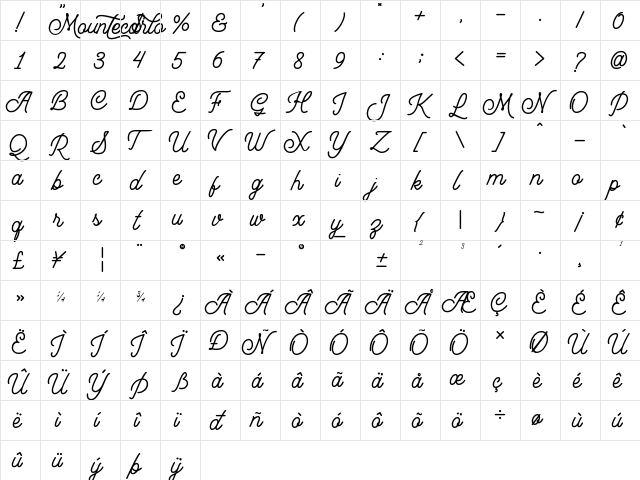
Mountecarlo Regular
| Designer | Abdul Malik Wisnu |
Design Context for Mountecarlo Typeface
Mountecarlo is a composed and adaptable typeface that performs quietly and consistently across a wide range of design contexts.